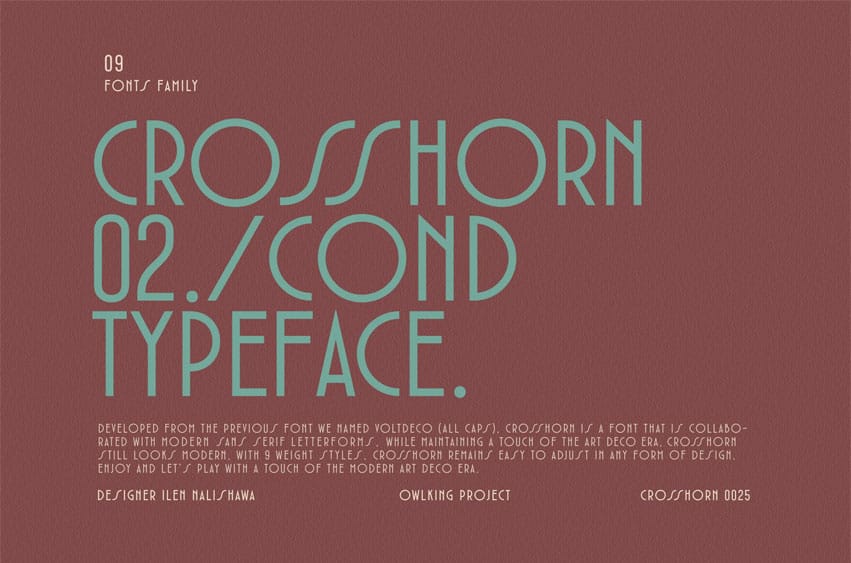
Crosshorn Cond Font with a slimmer combination is a font that is collaborated with modern sans serif letterforms, while maintaining a touch of the art deco era.
Crosshorn Cond still looks modern, with 9 weight styles, and crosshorn remains easy to adjust in any form of design. Enjoy and let’s play with a touch of the modern art deco era.